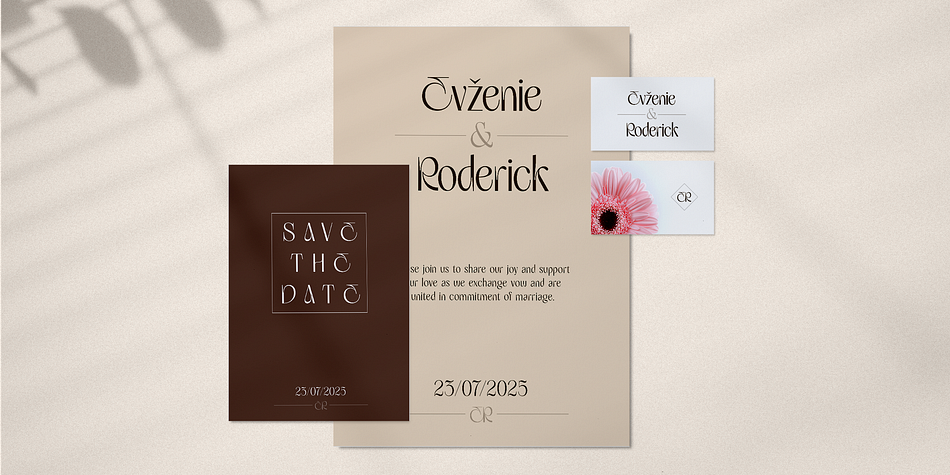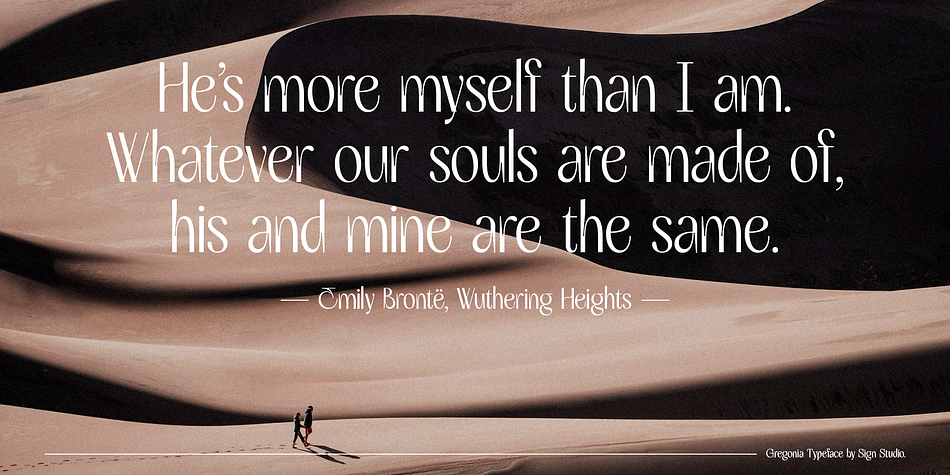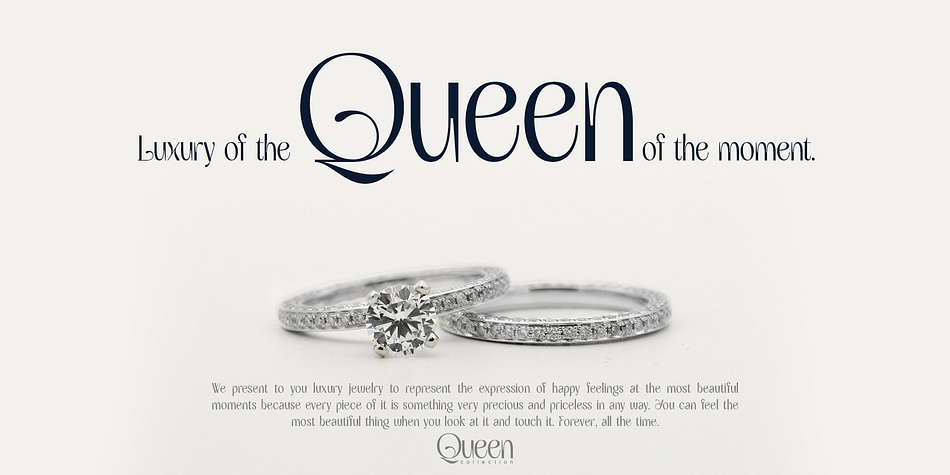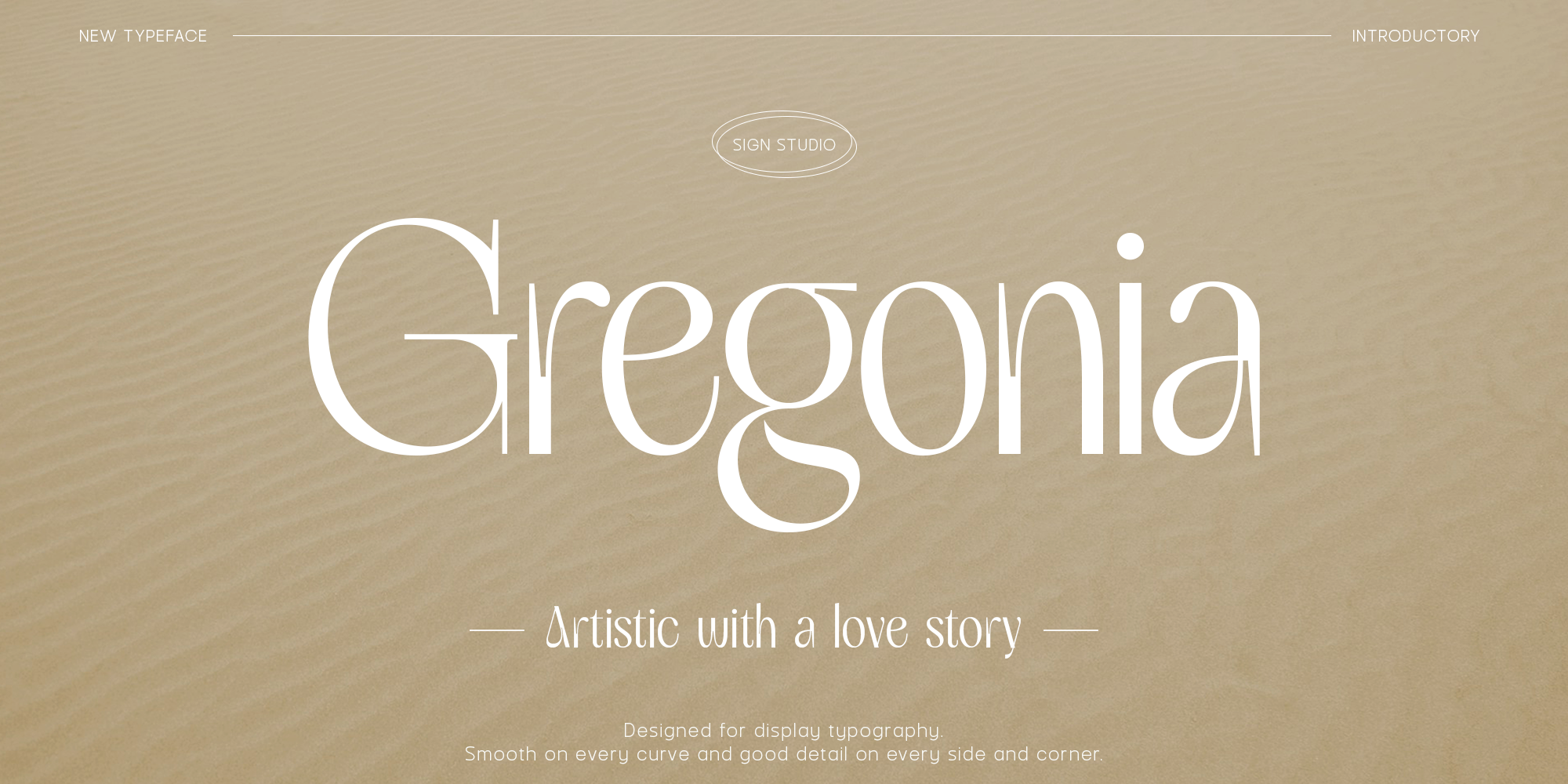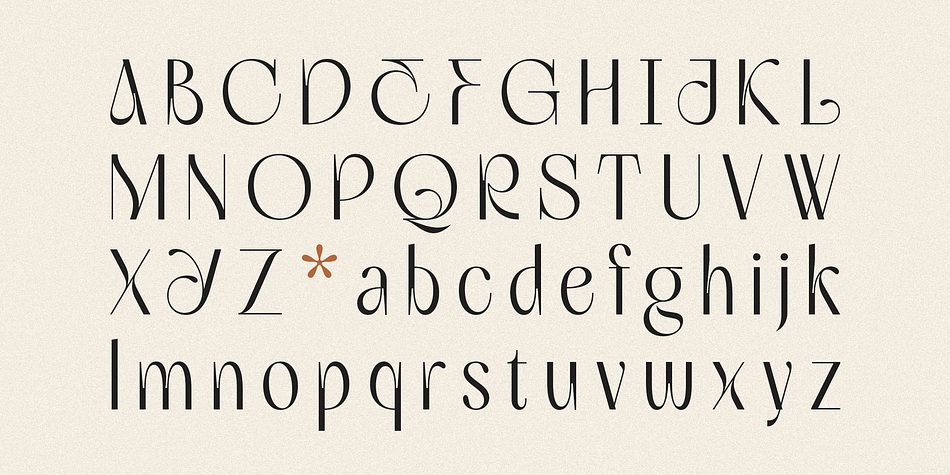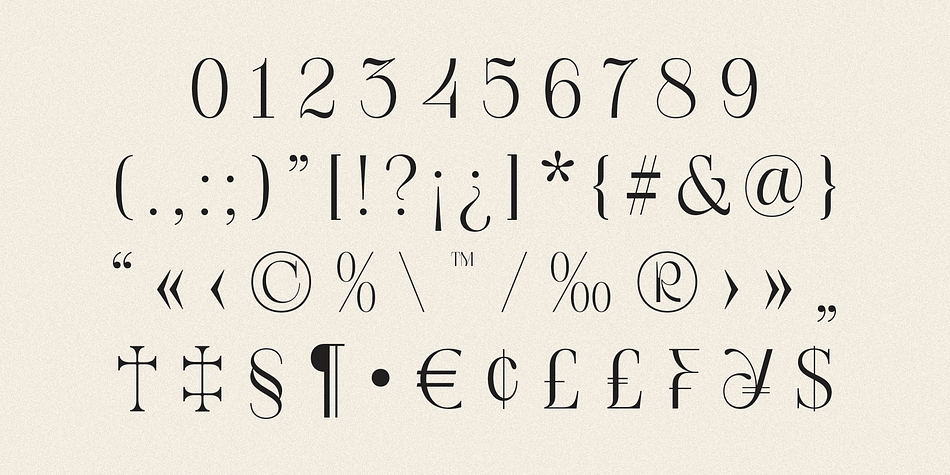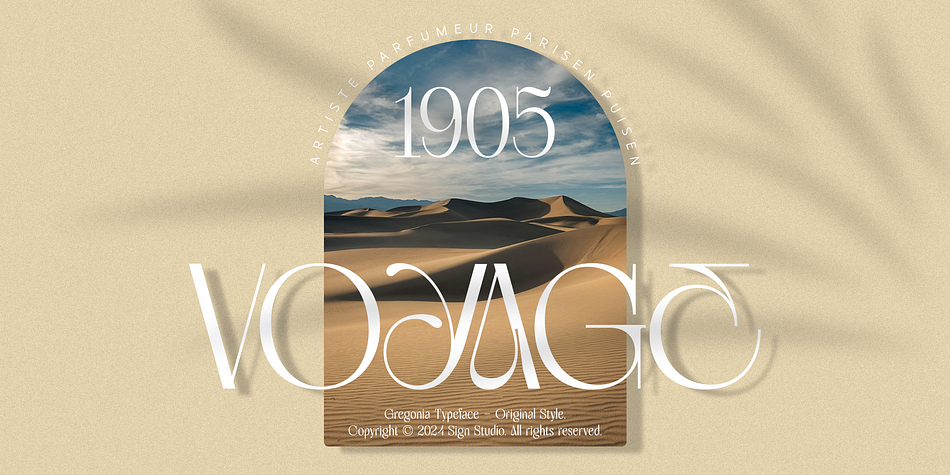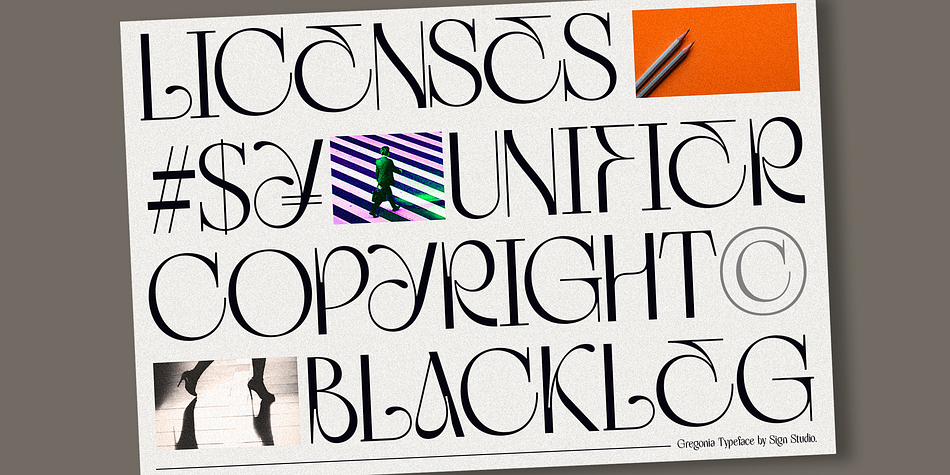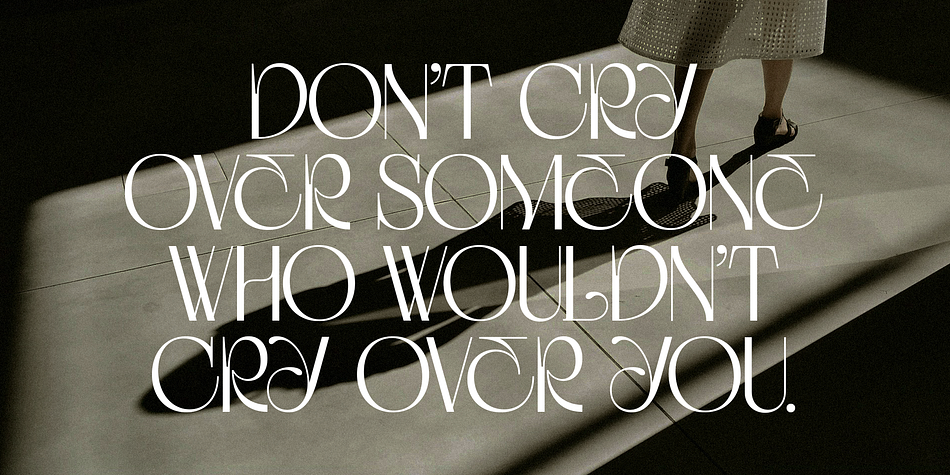
Gregonia
Gregonia is a display font family published by Sign Studio.
Gregonia - Artistic with lots of love. A typeface that is really fun to look at. Characters created with subtle contrasts will become strong characteristics.
The high level of detail is designed to achieve a good level of harmony. Gregonia clearly has high aesthetic values, is classic and elegant. Even though this font is intended for decoration, it still maintains readability, which is of course the main point in every Sign Studio work.
Support for over 80 languages makes it an excellent communication tool for anyone looking for a versatile yet beautiful font.
The typeface with its beautiful design and good readability will elevate creative projects to a higher level when creating personal as well as commercial projects.